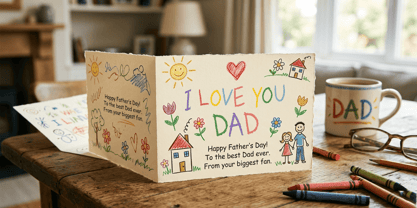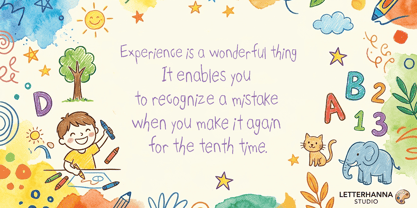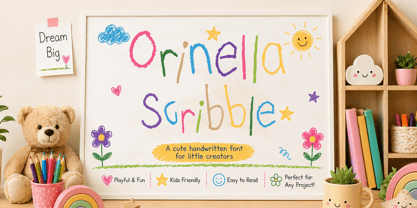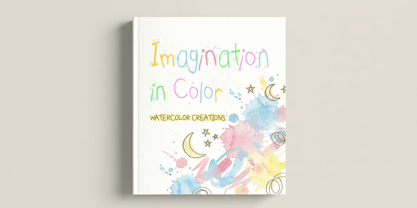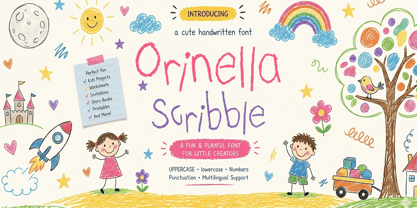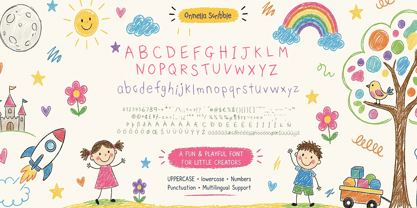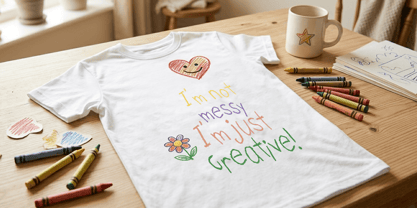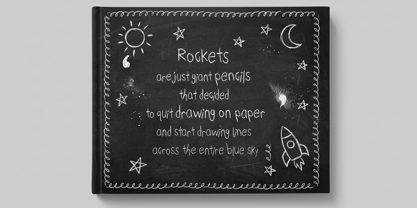
Orinella Scribble
by Letterhanna Studio
Meet Orinella Scribble — a font that feels like a sunny afternoon doodle in your favorite notebook. 🌿
Inspired by the raw, unfiltered charm of hand-drawn lettering, Orinella Scribble brings a playful, wobbly energy to every project. Each letter carries its own little personality — slightly imperfect, endlessly expressive, and full of warmth.
Perfect for children's books, greeting cards, party invitations, branding, social media graphics, and anything that deserves a touch of handmade magic.
✦ Unique wobbly letterforms
✦ Natural hand-drawn texture
✦ Works beautifully at display sizes
✦ Pairs well with clean sans-serifs